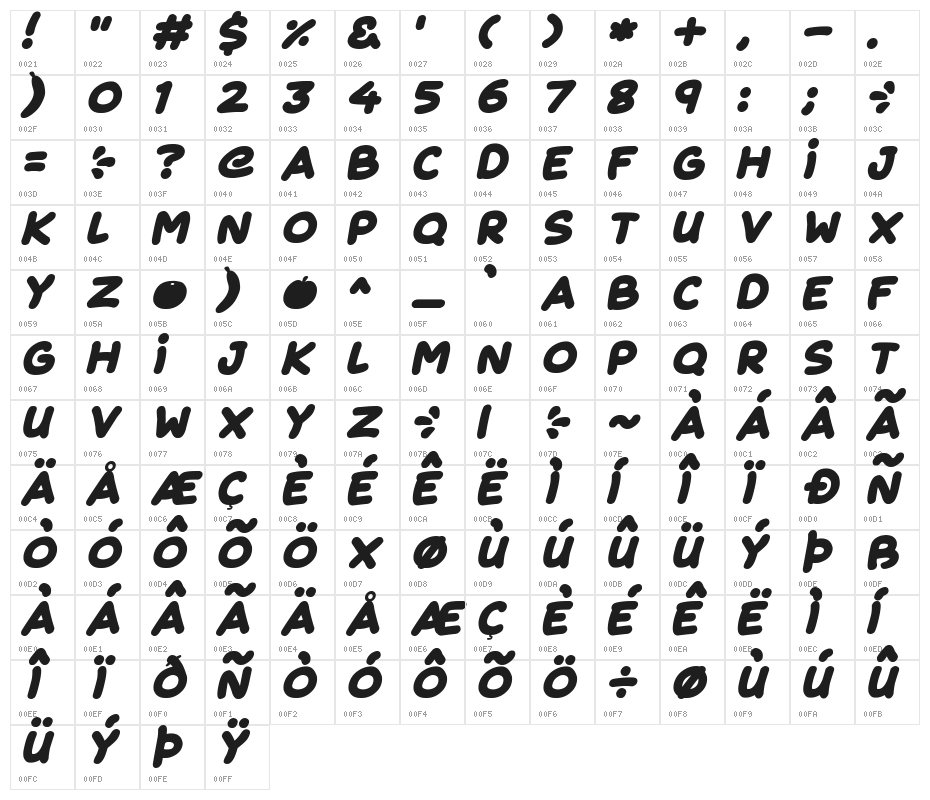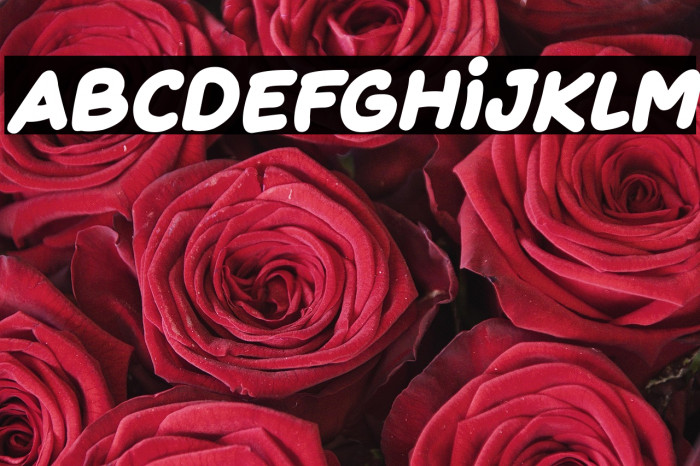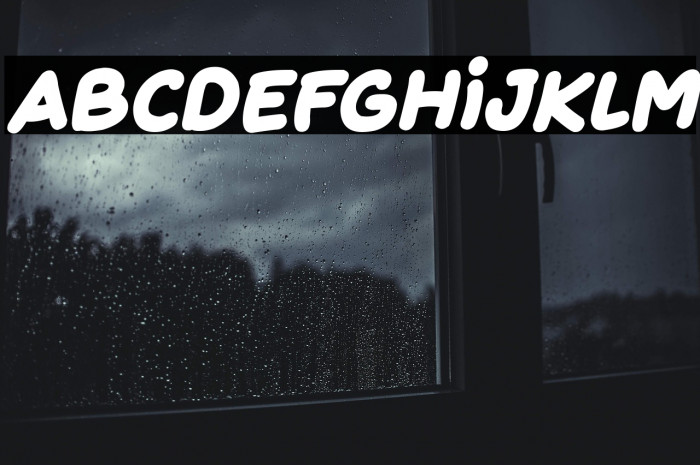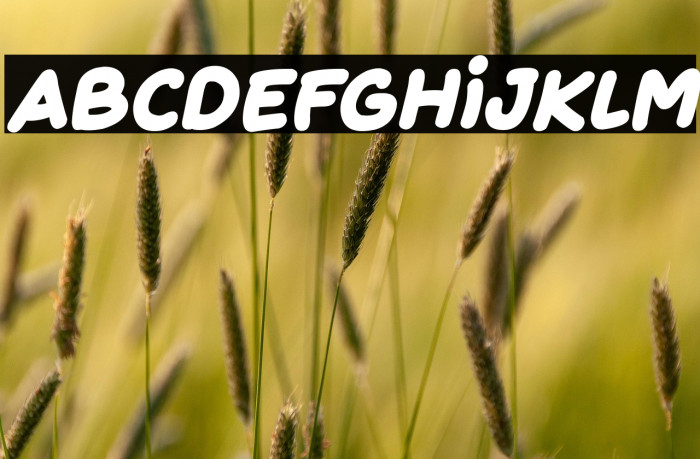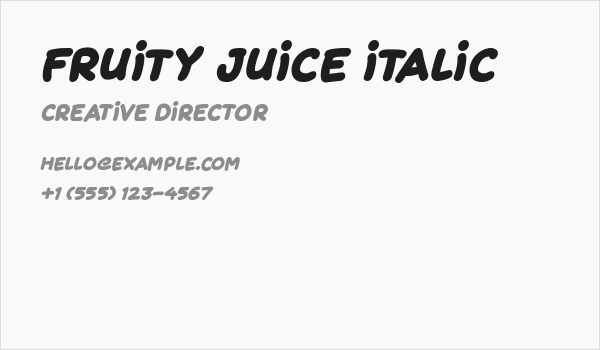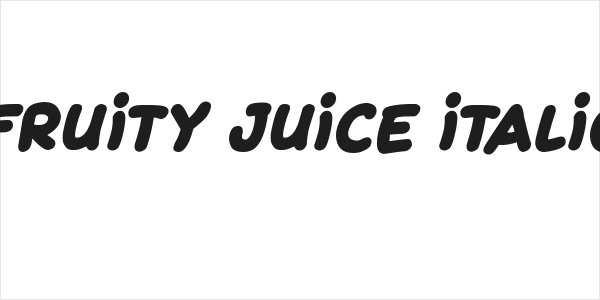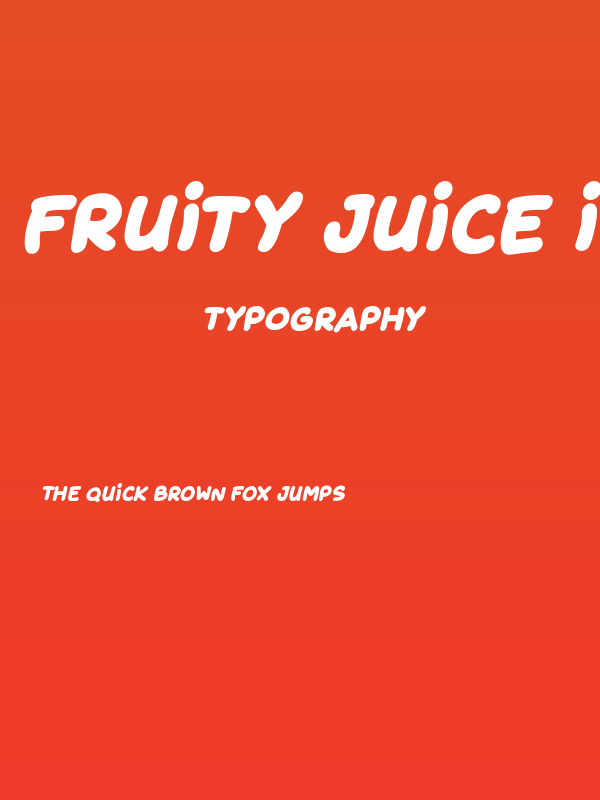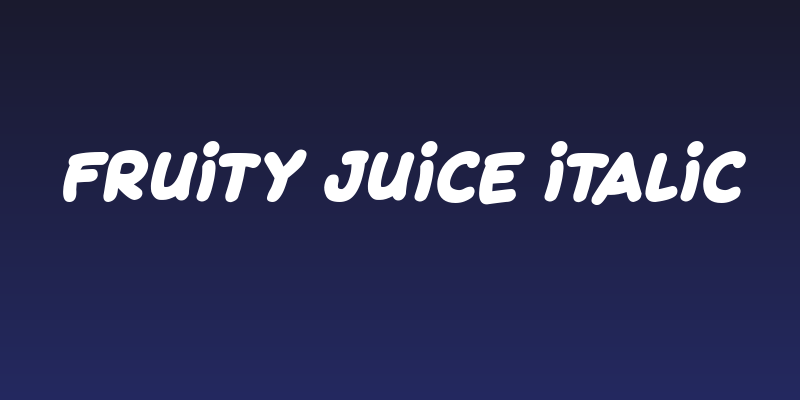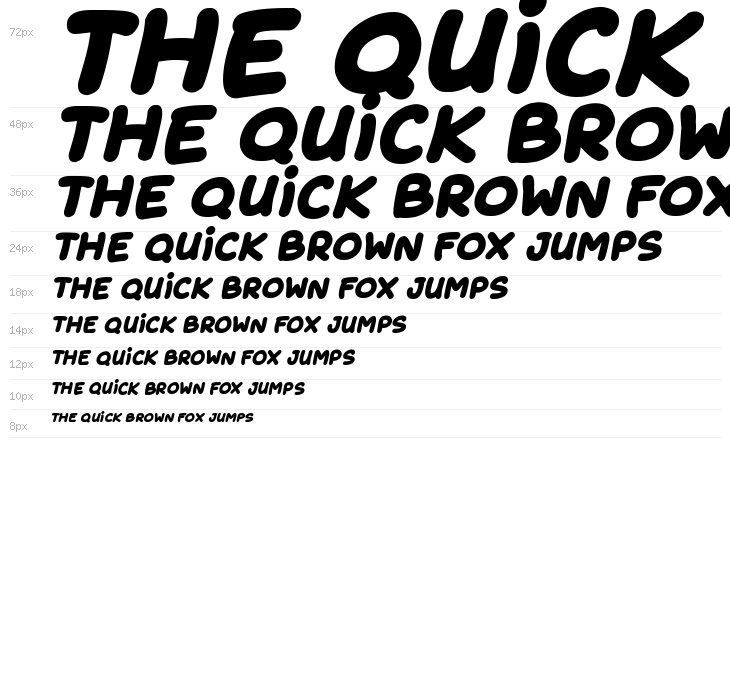
Fruity Juice Italic Font
Fruity Juice Italic Description
This playful and energetic font features bold, rounded characters with a smooth, flowing style. The letters are slightly slanted, giving a sense of motion and liveliness. The strokes are thick and consistent, providing a strong visual impact. The overall appearance is casual and friendly, making it suitable for projects that require a fun and approachable feel. The font includes a full set of uppercase and lowercase letters, numbers, and a variety of special characters, all maintaining the same whimsical style.
| Proposed Projects | Ideal for children's books, playful branding, party invitations, and casual social media graphics. |